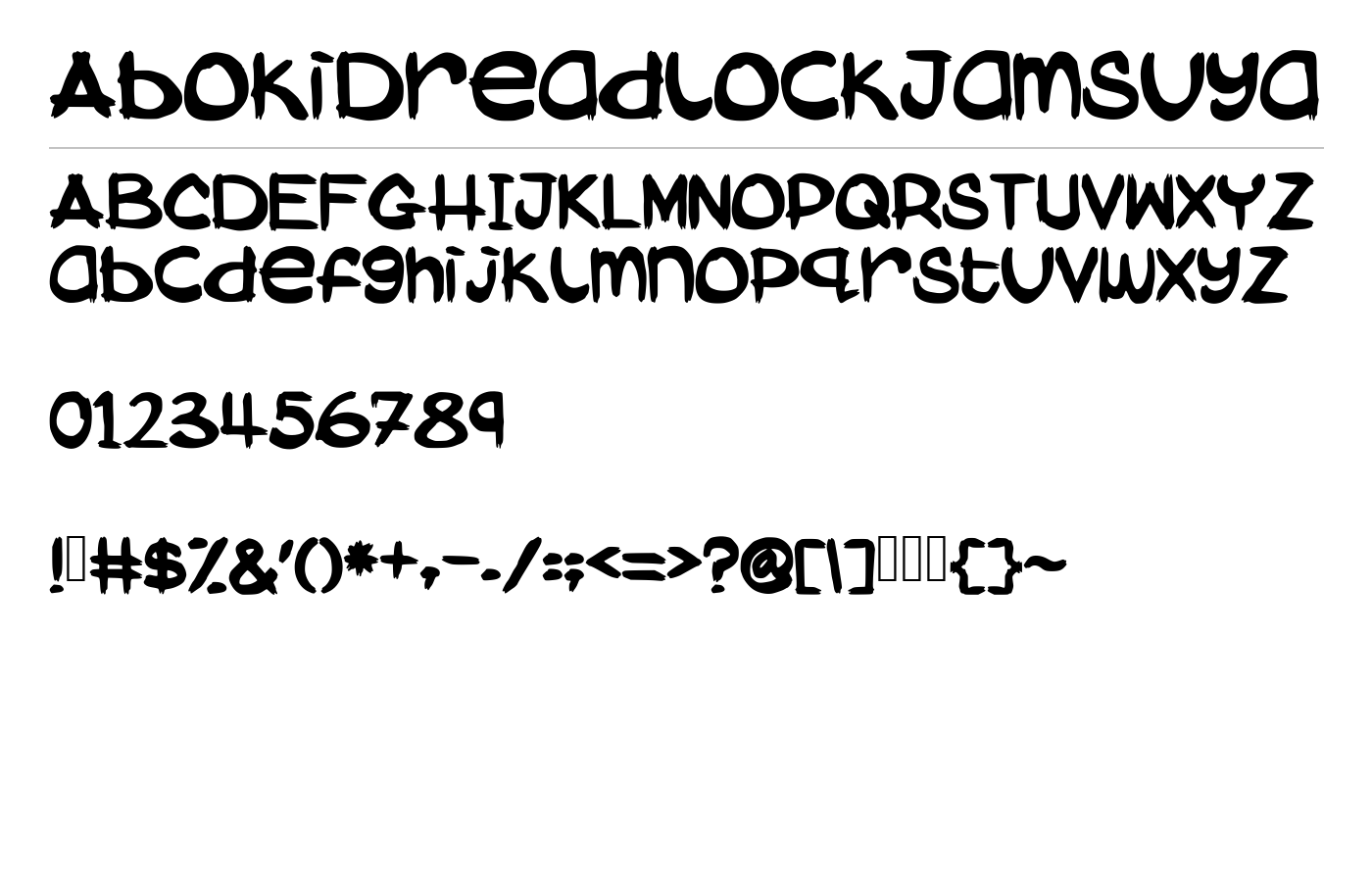
AbokiDreadlockJamSuya is a playful and bold sans serif font with an informal, hand-drawn feel. Its irregular shapes and thick strokes give it a friendly and energetic personality, making it perfect for creative projects, children's designs, or any context that benefits from a casual, approachable vibe. This font works well for eye-catching headlines, logos, and posters where a fun and distinctive look is desired.
AbokiDreadlockJamSuya Font
About AbokiDreadlockJamSuya Font